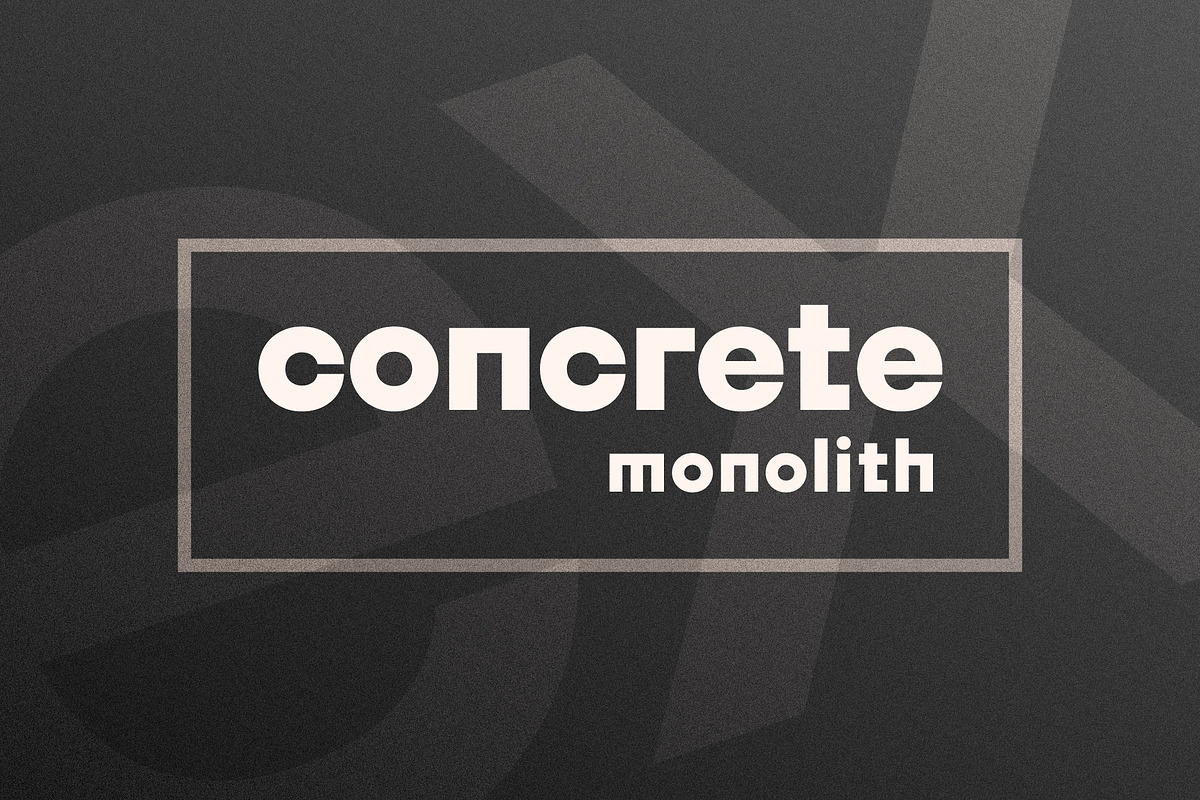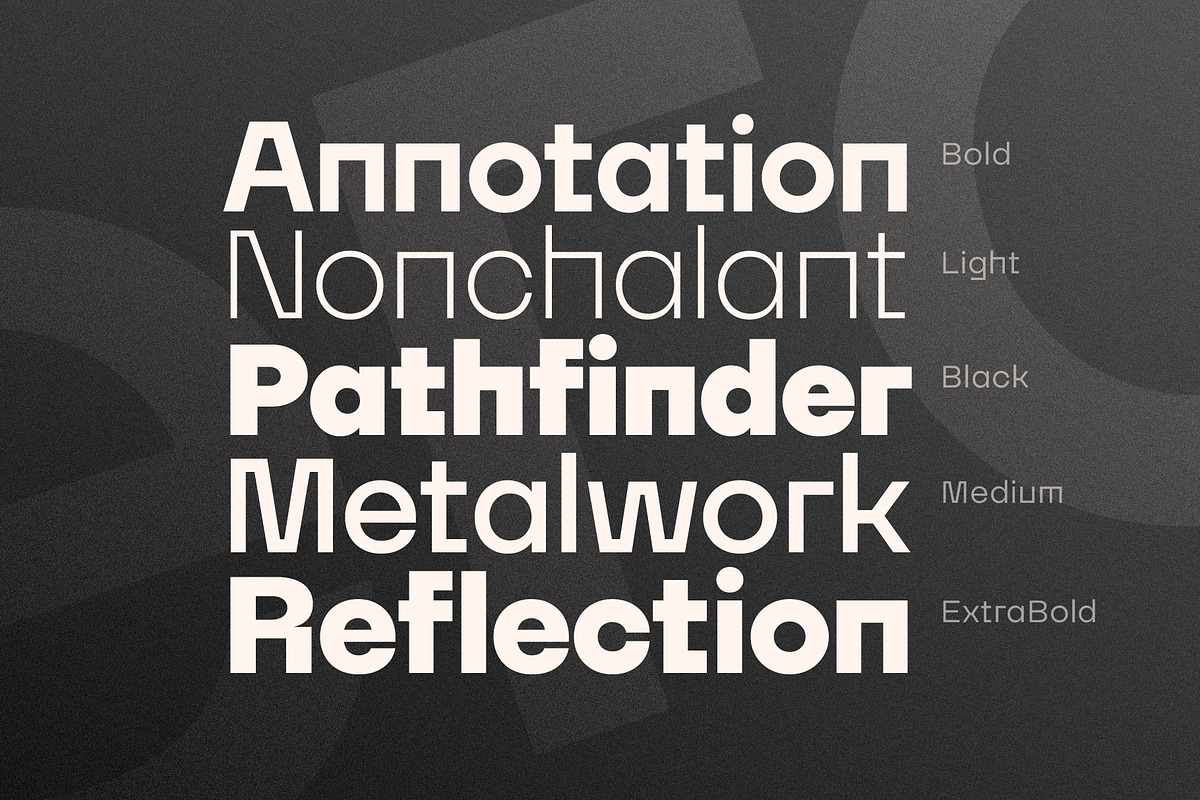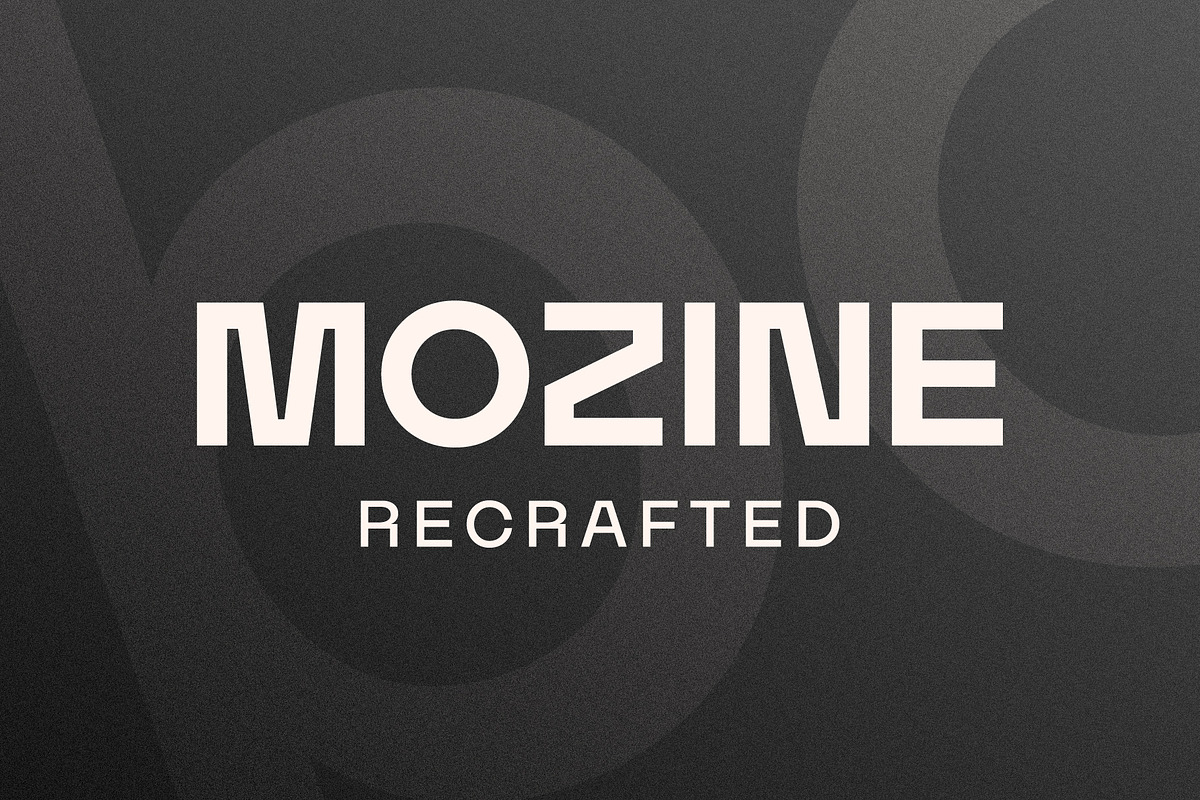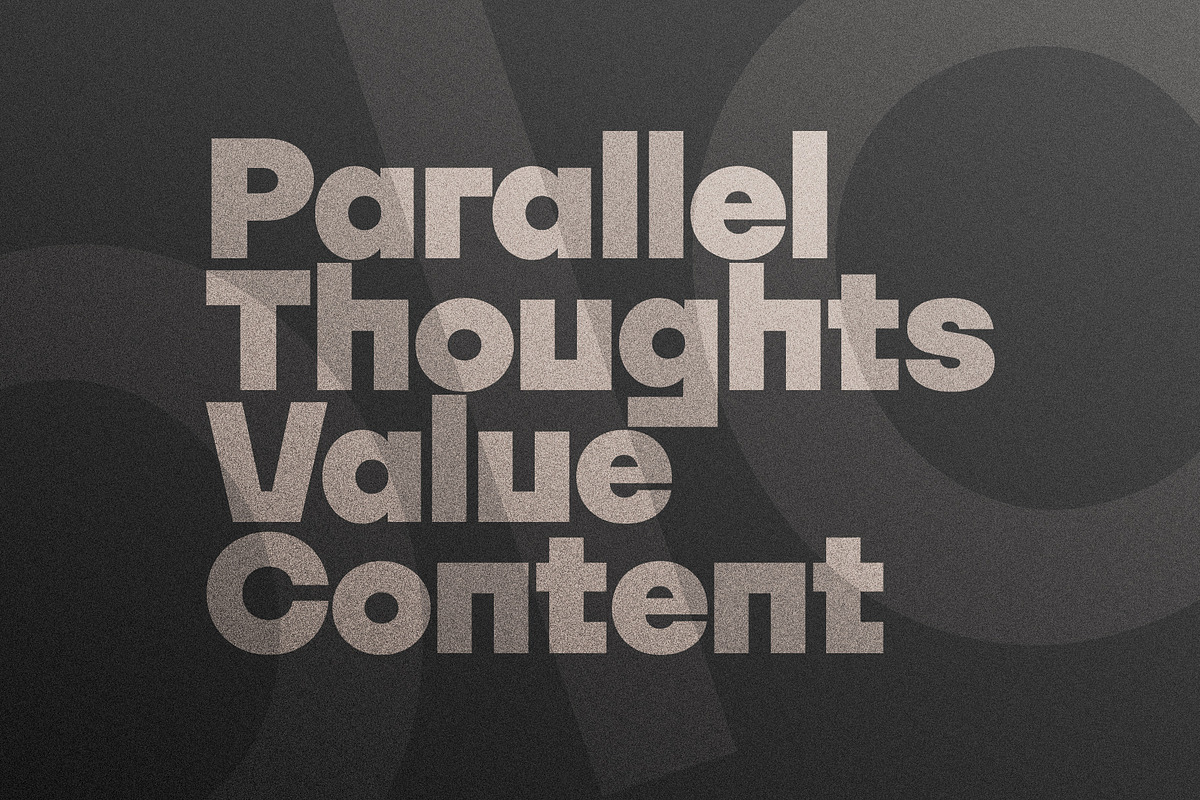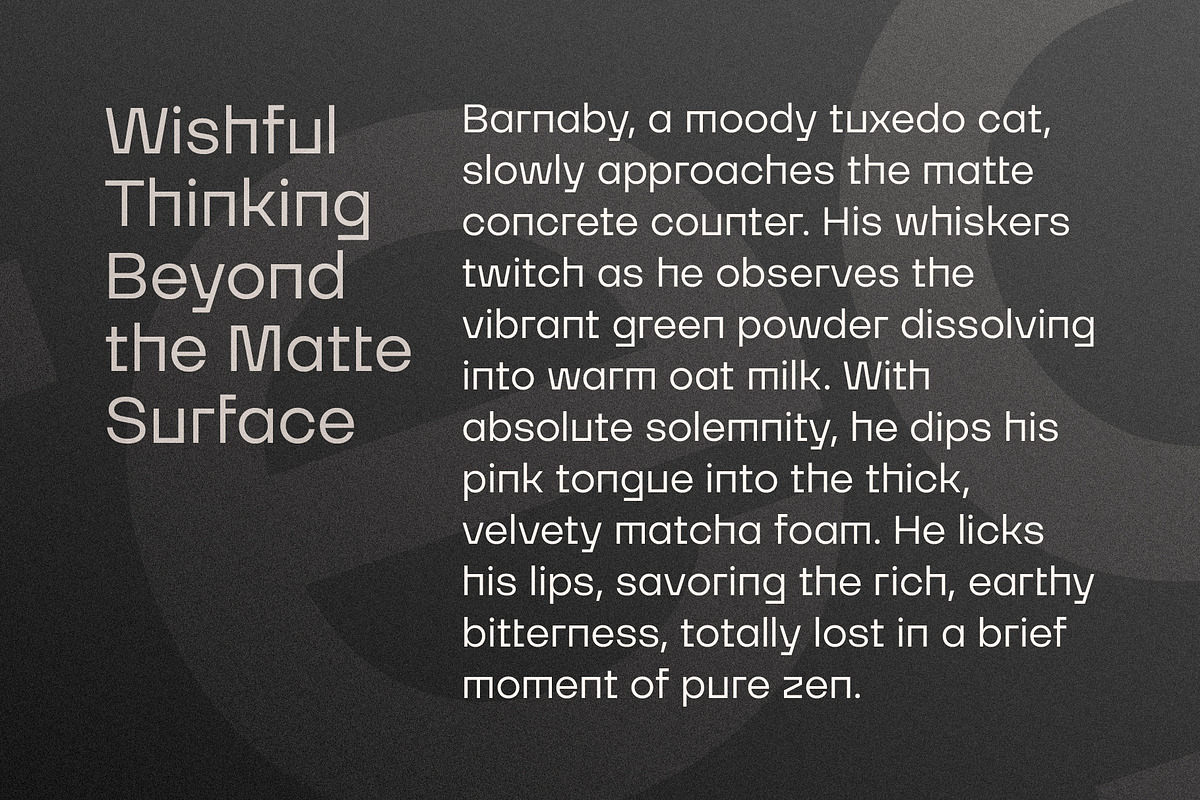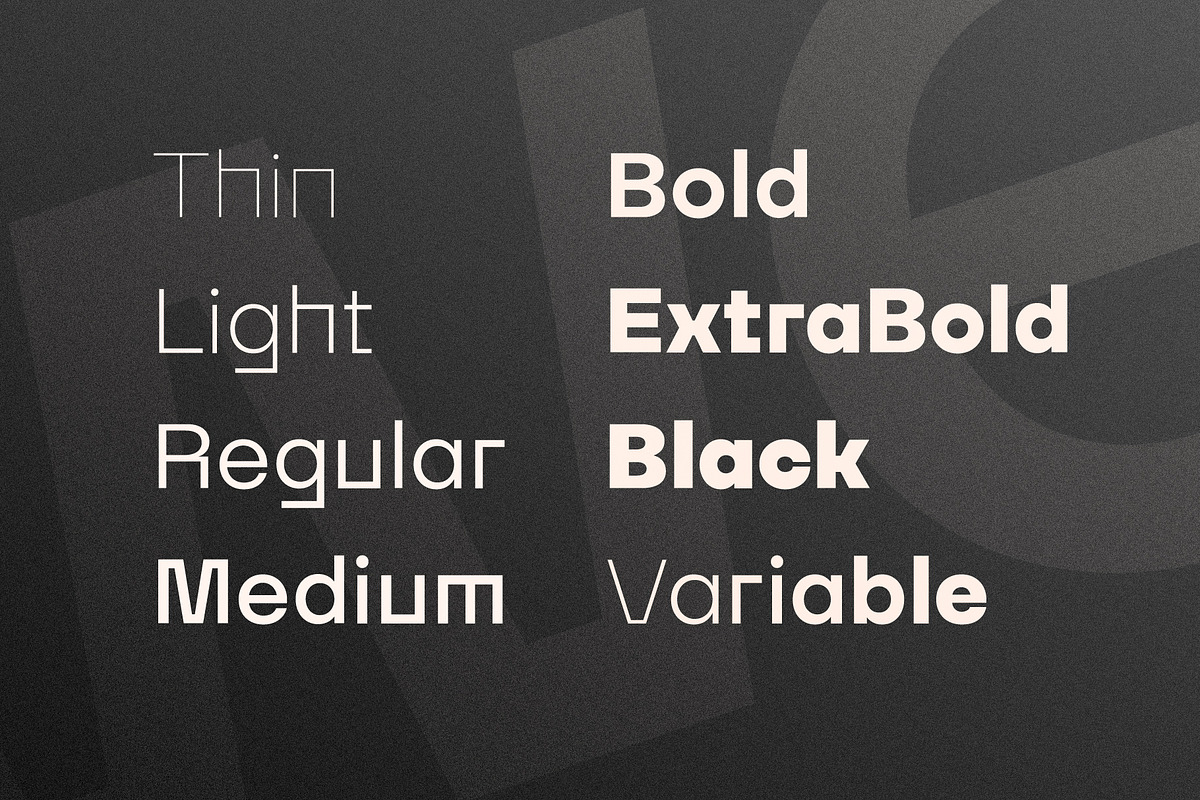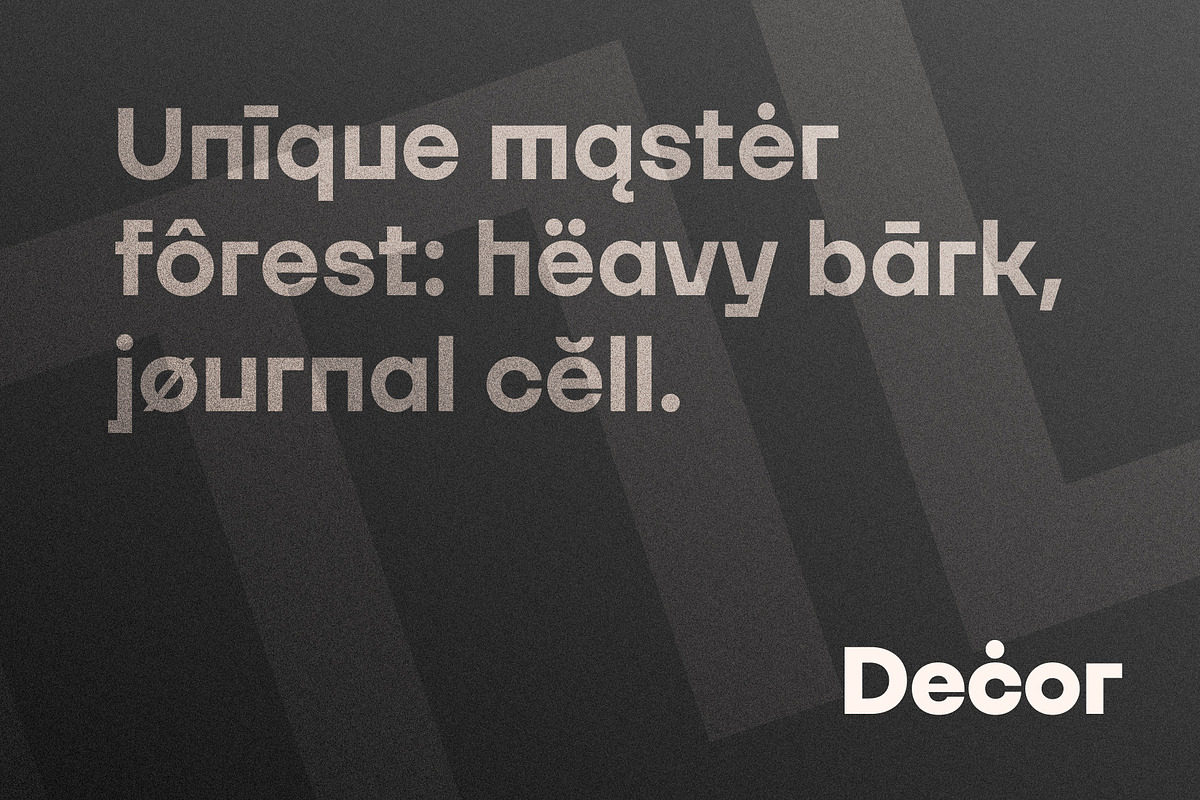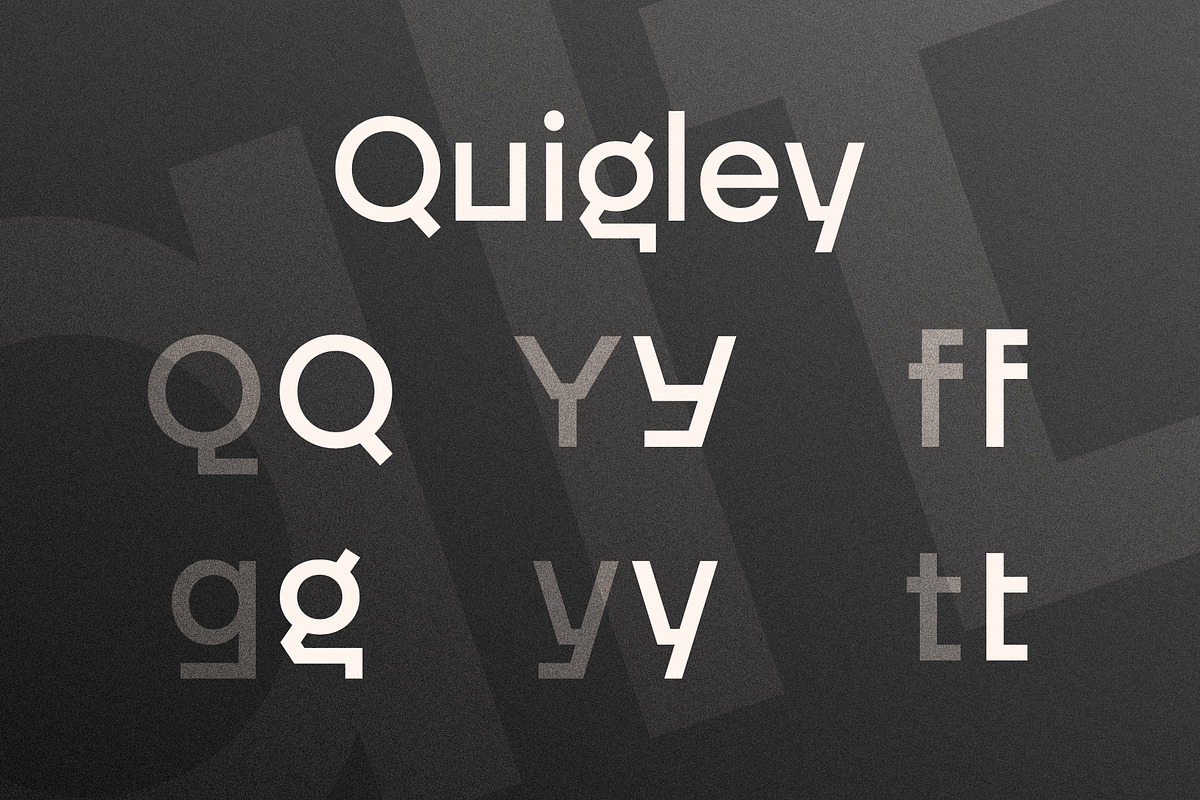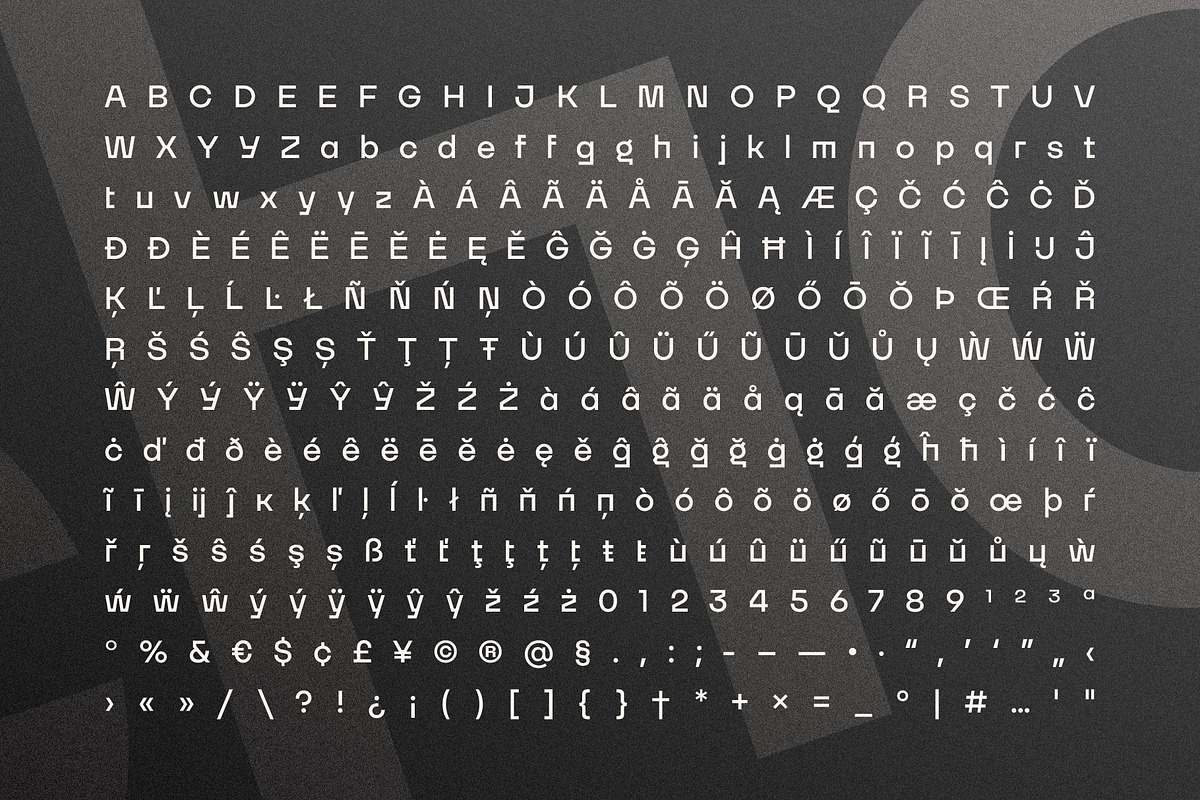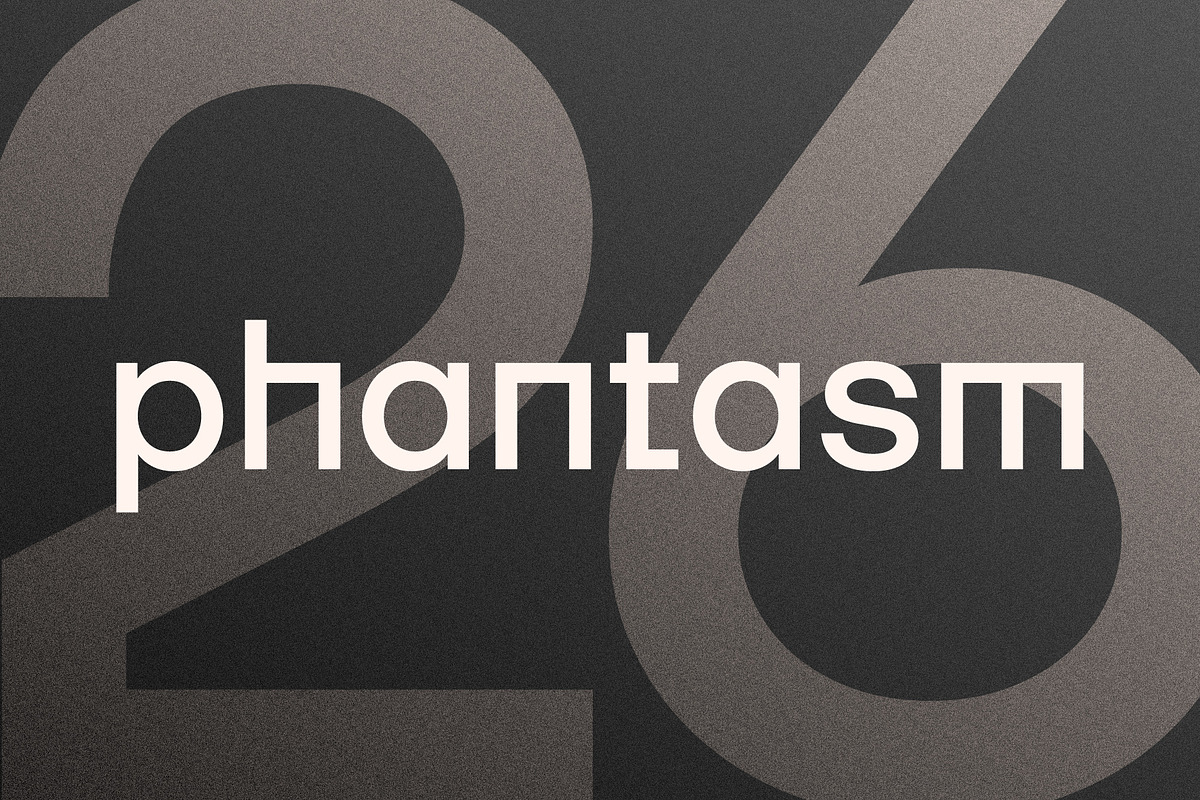
Magnes Font Family
Magnes is a structural sans-serif typeface with a sharp engineered character and distinct geometric cuts. The family consists of 7 static weights from Thin to Black alongside a variable font, offering Extended Latin support.
Uppercase and lowercase letters
Extended Latin diacritics
OpenType alternates
Numerals and punctuation
Symbols and miscellaneous glyphs